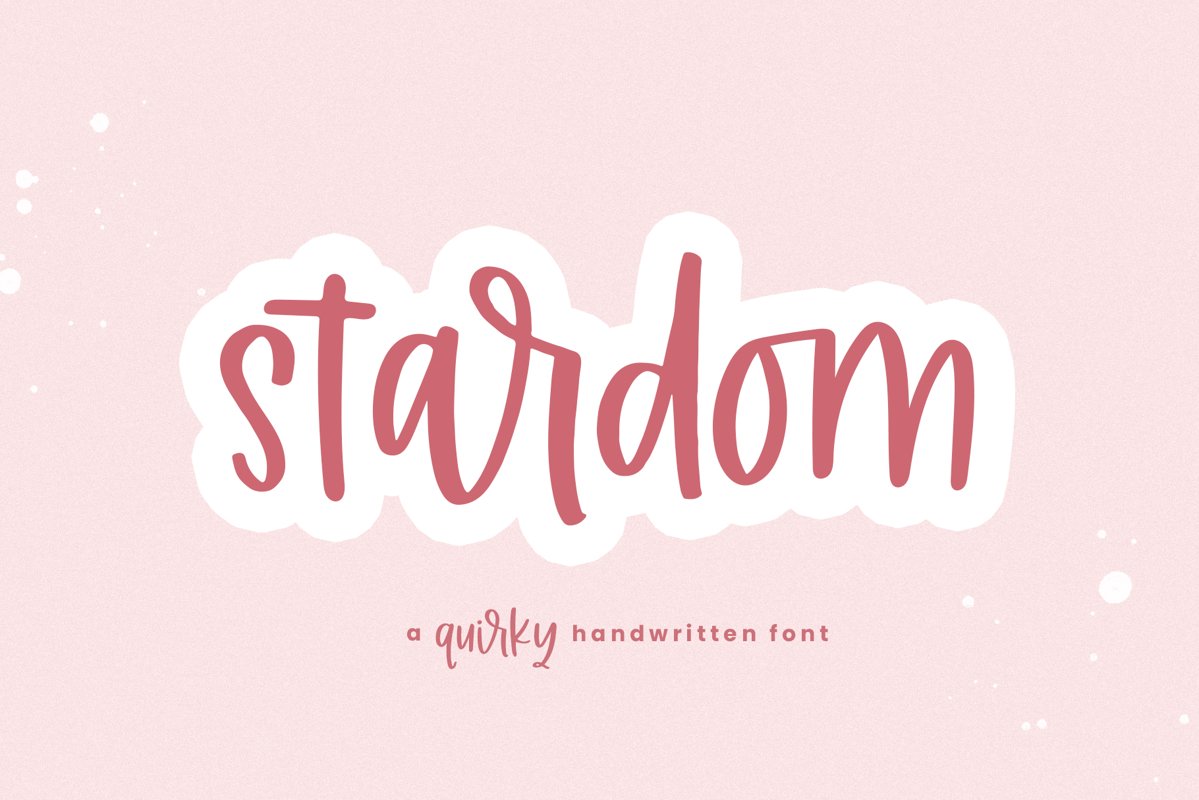
Stardom - A Quirky Handwritten Font
Stardom
Stardom is a quirky handwritten font!
This font is perfect for quotes, shirt designs, websites, branding, children's designs, svg designs, blogs, logos, invitations and more!